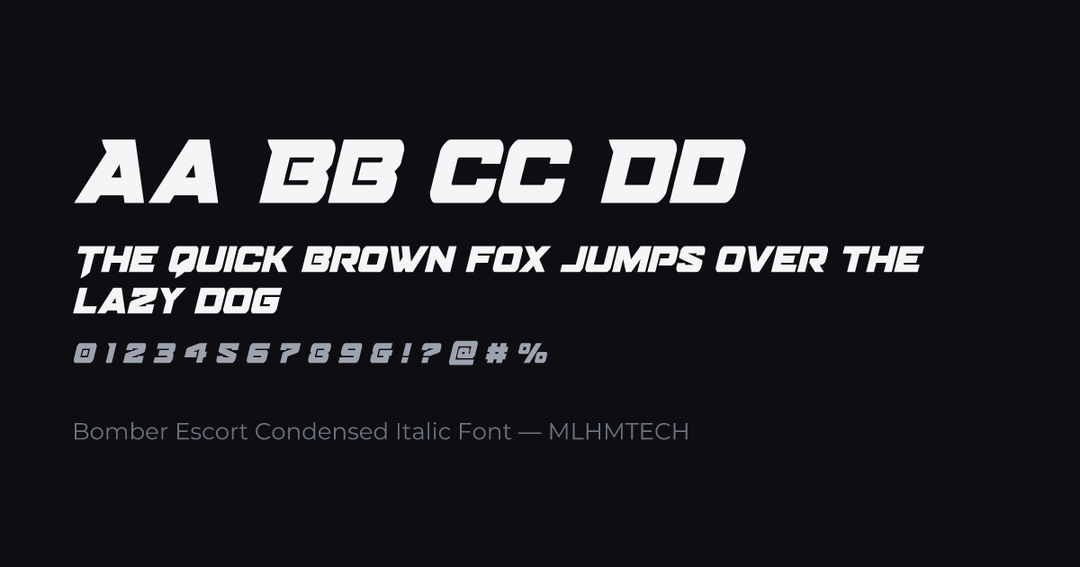
Bomber Escort Condensed Italic Font
Bomber Escort Condensed Italic is a bold, condensed display font with an italic slant, ideal for eye-catching headlines and vintage-inspired designs.
Bomber Escort Condensed Italic is a striking display typeface that combines a condensed structure with an italic slant, giving it a dynamic and aggressive feel. Its thick strokes and tight letterforms make it perfect for headlines, posters, and branding that needs to stand out.
This font is versatile and works well in both digital and print media. Use it for movie titles, sports graphics, or any project that requires a strong, attention-grabbing typeface. The included TTF file ensures compatibility with most design software.